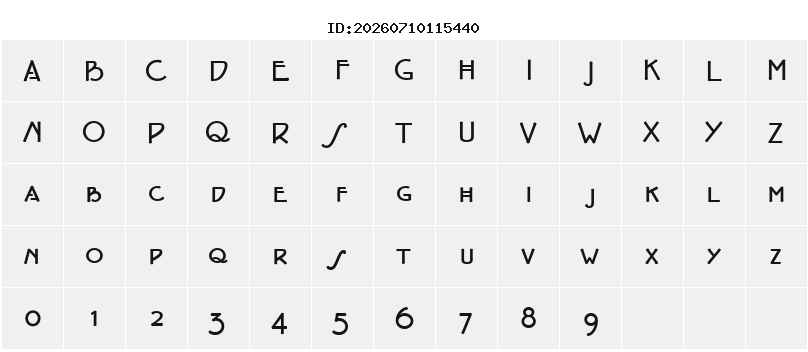
EaglefeatherSmallCaps Preview
About EaglefeatherSmallCaps.ttf
EaglefeatherSmallCaps.ttf is a modern, elegant sans-serif font designed for ultimate readability and visual harmony. Perfect for branding, headlines, web design, and print materials.